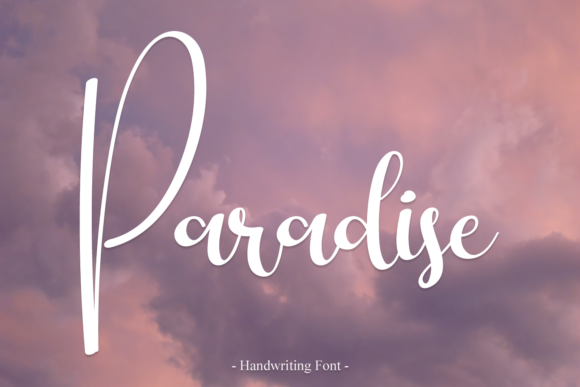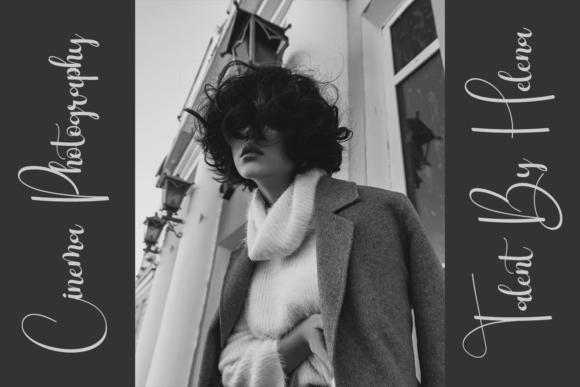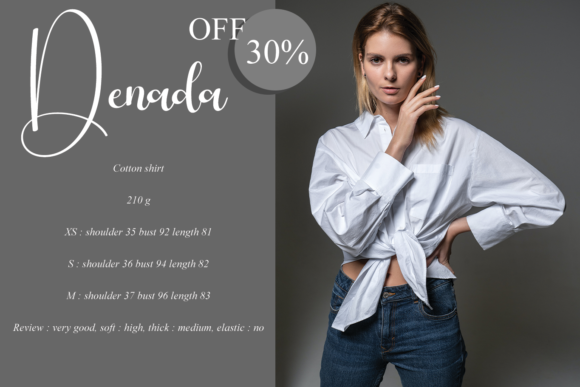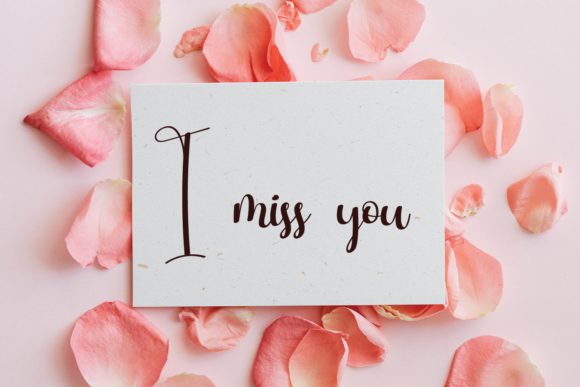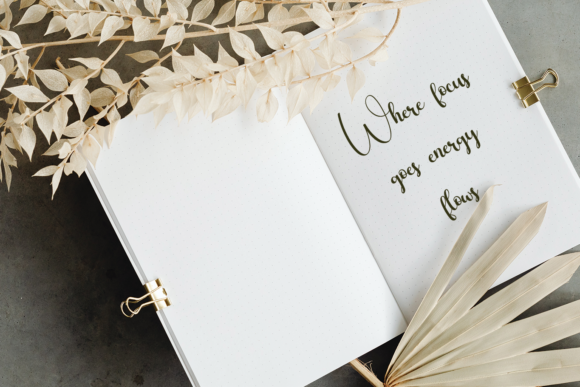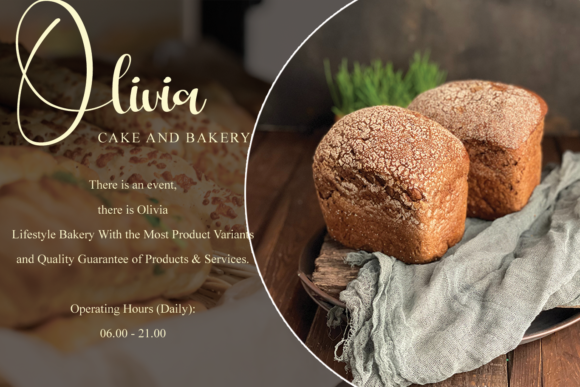
Paradise Font
About Paradise Font
Paradise is a lovely and delicate script font that exudes elegance and class. This font was particularly crafted for those who need a beautiful and refreshing look to their designs.